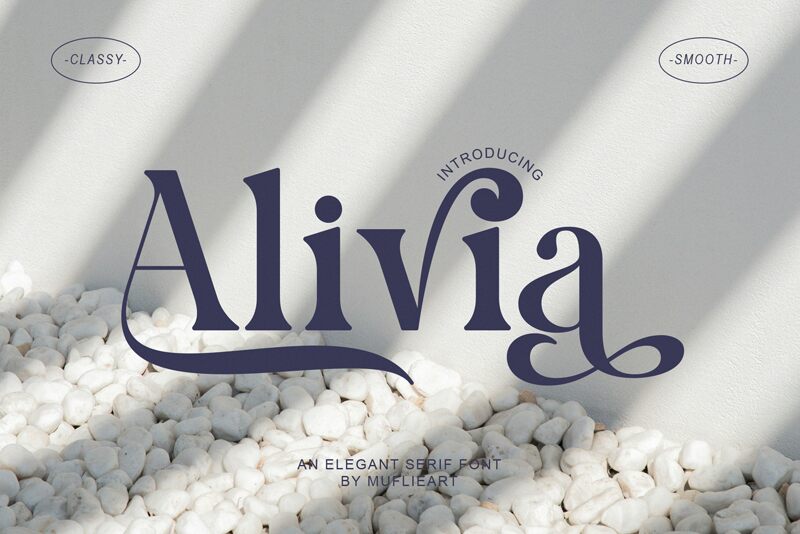
Alivia font family by Muflieart is a free serif font family with classic elegance and sophistication. Each font style takes advantage of artistic, decorative features with selected letters developing into flowing forms. The design is refined, with a smooth presentation that’s excess in a subtle modern twist.
If you’re working on a display, put Alivia in the title to see how its stylistic advantages impact the overall design. Be it an invitation card, advertisement, banner, book cover, or website, the font always finds a successful way to blend in with the context of your project.